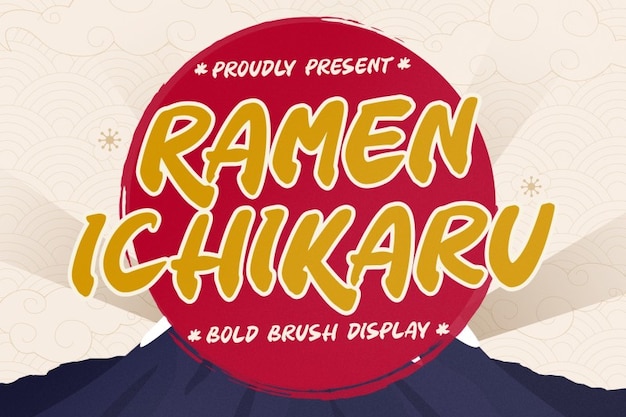
Ramen Ichikaru Font
Ramen Ichikaru is a dynamic font inspired by Japanese and Asian aesthetics. With its clean, bold strokes and subtle cultural flair, it captures the essence of traditional Japanese design while offering a modern twist. Ideal for food menus, branding, or cultural projects, Ramen Ichikaru brings a touch of authentic Japanese style to any design.